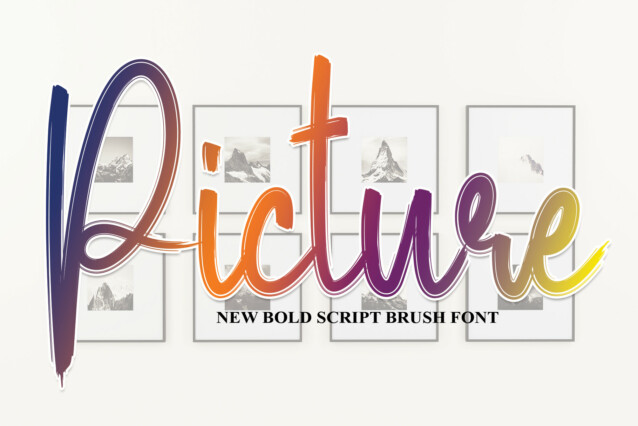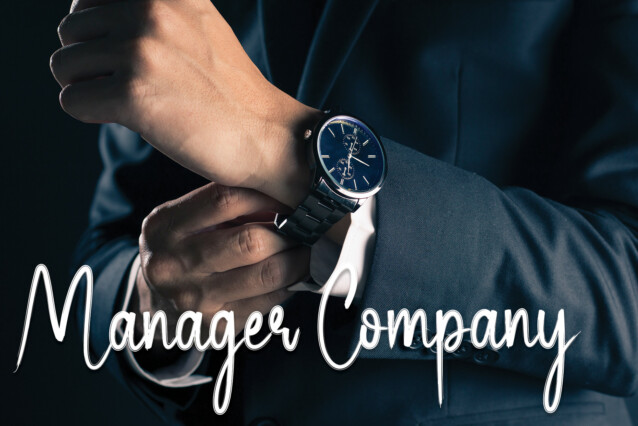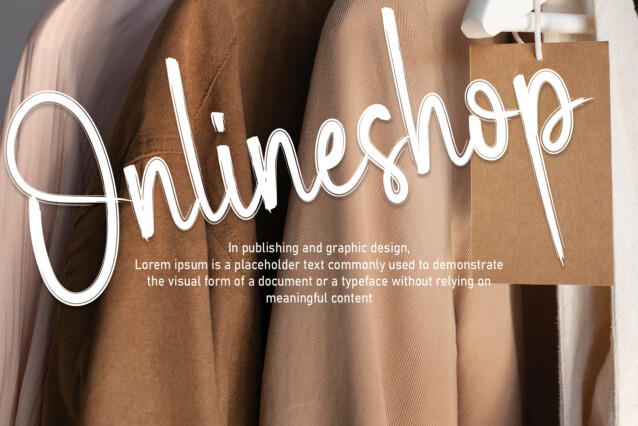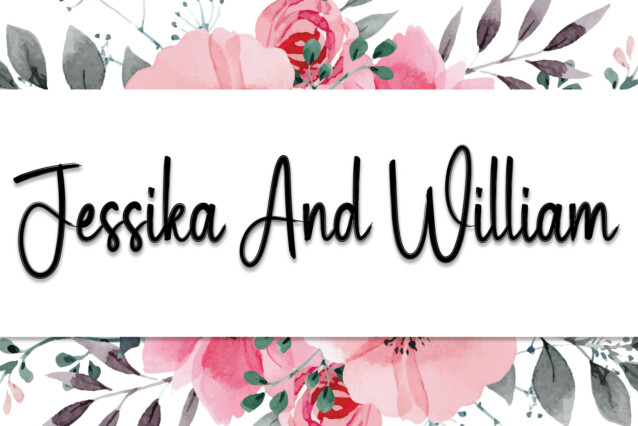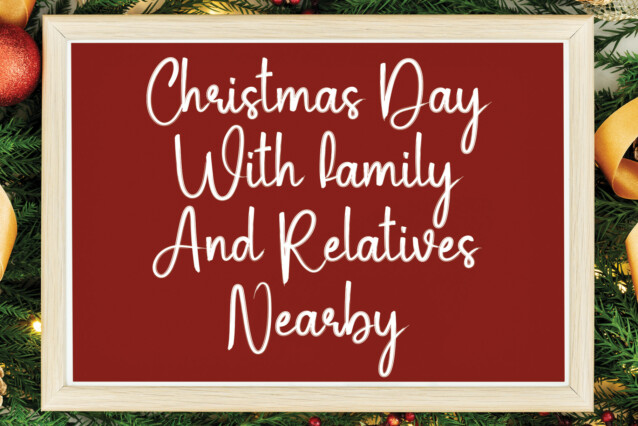
Picture Script Font
Picture Script Font is a lovely handwritten font. Its latest style letters are perfect for wall displays, wedding invitations, social media post logos, advertisements, product packaging, product designs, labels, photography, watermarks, invitations, stationery, and any project that requires a handwritten taste.